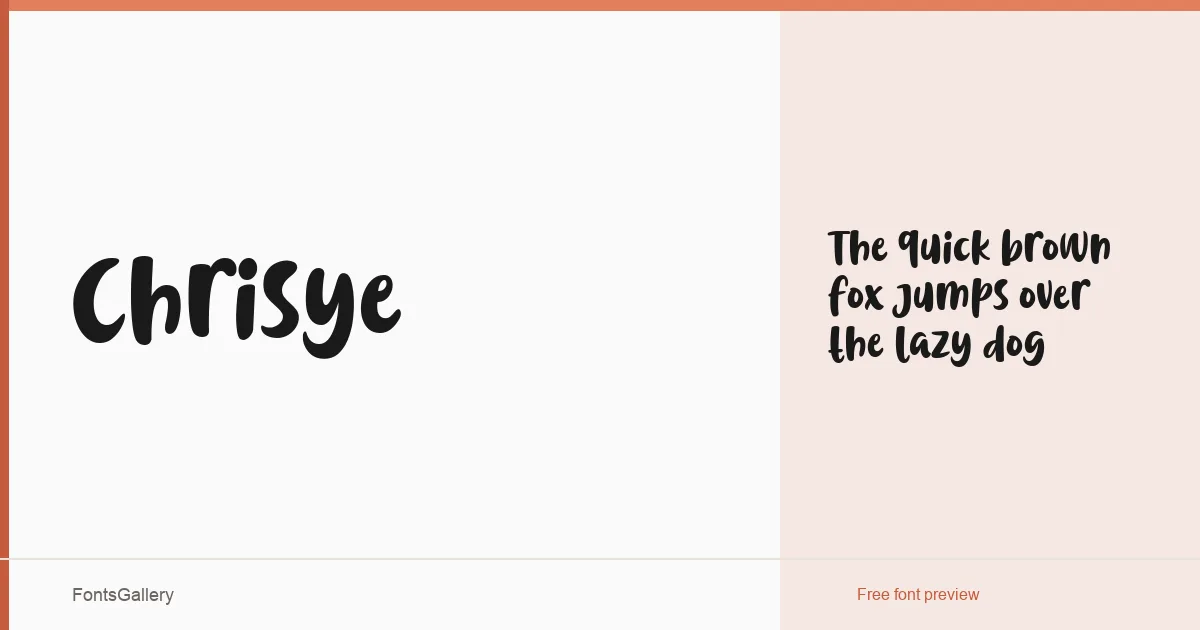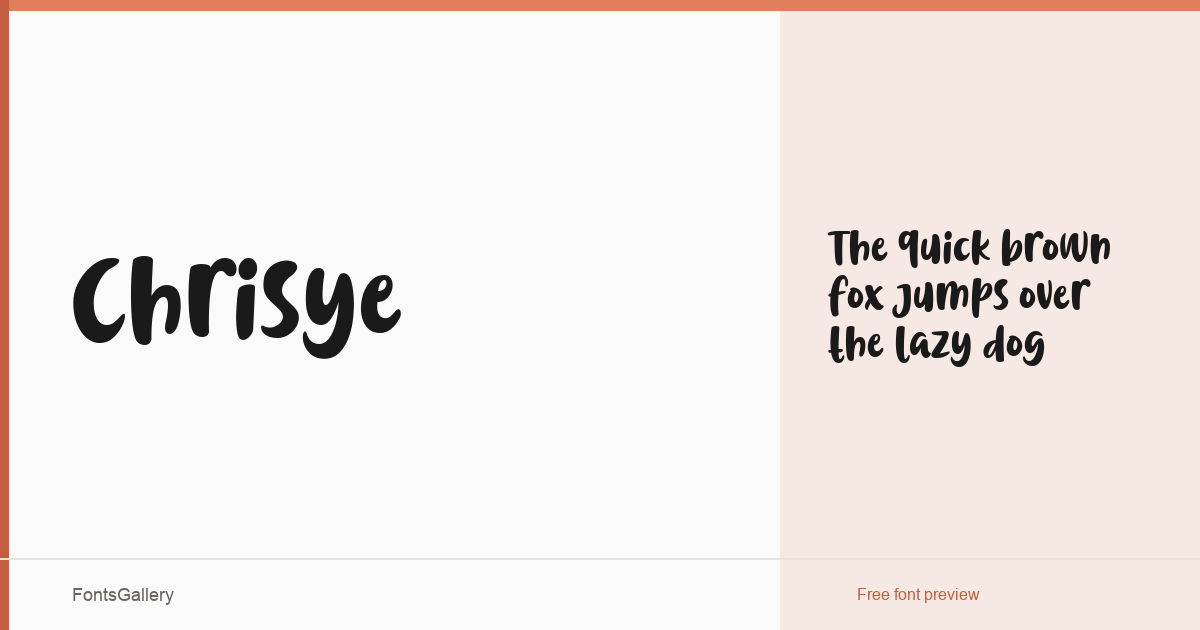
About Chrisye Font
Chrisye is a handwritten typeface created by Keithzo, designed to bring a playful, modern, and whimsical energy to creative projects. Its organic, hand-drawn character makes it a versatile choice for designers seeking personality and warmth in their typography. The result is a font that feels both approachable and distinctly contemporary.
Chrisye's letterforms reflect the natural flow of handwriting, with a whimsical character that adds charm and spontaneity to any composition. Its modern sensibility ensures the playful strokes feel fresh and relevant rather than overly casual, striking a balance between expressive energy and visual clarity. Each character carries a lively rhythm that gives text a distinctive, personal touch.
Chrisye is ideally suited for logos, posters, branding, social media graphics, and greeting cards where a friendly yet stylish tone is desired. Its expressive nature makes it particularly effective as a display or accent typeface in visual identities and promotional materials. For a well-balanced typographic combination, pair Chrisye with Aresink for a harmonious handcrafted feel, or with Helvetica for a striking contrast between expressive script and clean, neutral sans-serif.